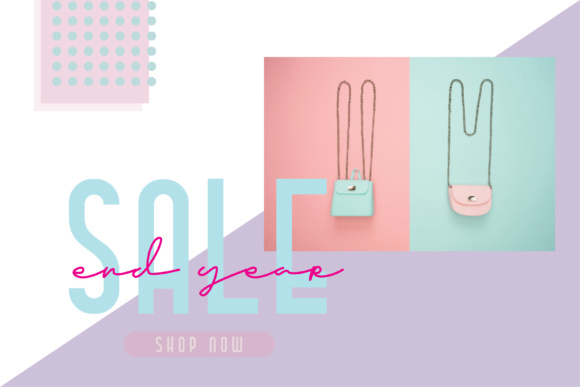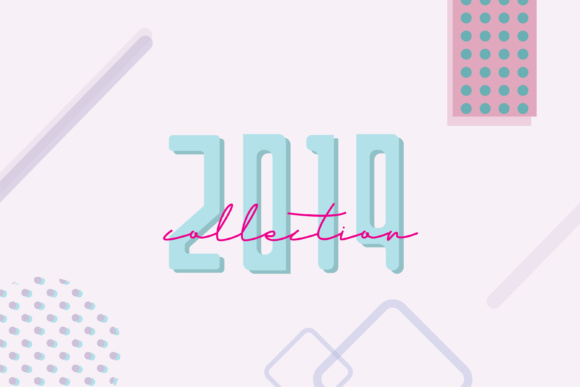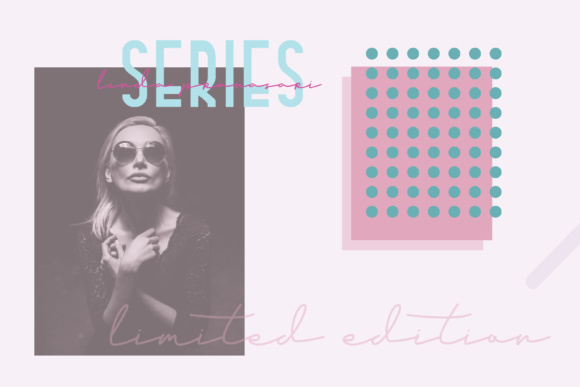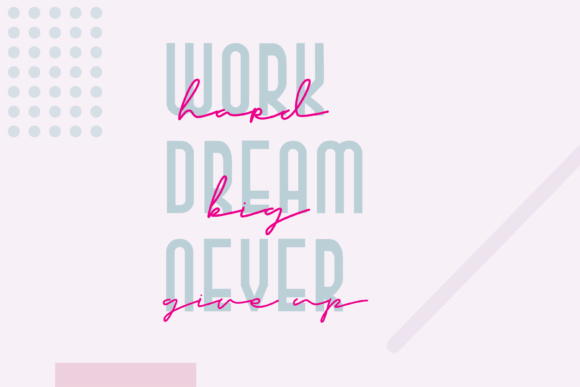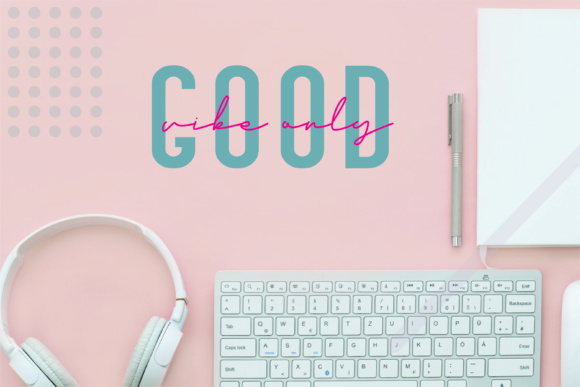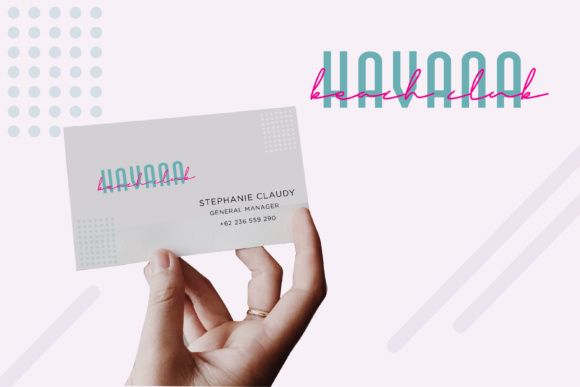
Introducing the Classy Beautiful Duo Font: Elevate Your Designs with Elegance and Modernity
In the world of typography, finding the perfect font duo that combines elegance, modernity, and versatility can be a daunting task. However, look no further than the Classy Beautiful Duo Font, a stunning pair of typefaces designed to transform your designs. This beautiful duo includes two font files – a script and a sans font – crafted to work in harmony as perfect companions or to stand strong as individual typefaces.
The Essence of Classy Beautiful Duo Font
The Classy Beautiful Duo Font is an elegant and modern typeface duo that embodies sophistication and refinement. The script font boasts fluid connections and graceful lines, evoking a sense of luxury and creativity. On the other hand, the sans font presents a clean, crisp, and contemporary look, ideal for designs that require a touch of modernity and simplicity.
Key Features of the Classy Beautiful Duo Font
- Dual Font Files: The package includes two font files – a script font and a sans font – allowing you to choose the perfect style for your project or combine them for a unique look.
- Elegant and Modern: The Classy Beautiful Duo Font seamlessly blends elegance with modernity, making it suitable for a wide range of design applications, from luxury branding to digital media.
- High Versatility: Whether you’re working on a sophisticated business card, an elegant wedding invitation, or a modern website, this font duo adapts effortlessly to various design needs.
- Easy to Read: Both fonts are designed with readability in mind, ensuring that your message is conveyed clearly and effectively, regardless of the medium.
- Designer and Crafters’ Delight: Perfect for designers and crafters looking to add a touch of class and sophistication to their projects, the Classy Beautiful Duo Font offers endless creative possibilities.
Use Cases for the Classy Beautiful Duo Font
The versatility of the Classy Beautiful Duo Font makes it an excellent choice for a variety of design projects. Here are some use cases where this font duo truly shines:
- Branding and Logo Design: Create a lasting impression with elegant and modern logos that reflect your brand’s personality.
- Wedding and Event Stationery: Add a touch of sophistication to wedding invitations, save-the-date cards, and event branding.
- Web Design: Enhance your website’s aesthetic appeal with a clean and elegant typography that engages visitors.
- Packaging Design: Stand out on store shelves with beautifully designed packaging that exudes luxury and quality.
- Social Media Graphics: Elevate your social media presence with stylish and professional graphics.
Why Choose the Classy Beautiful Duo Font?
In a sea of typefaces, the Classy Beautiful Duo Font stands out for its unique blend of elegance and modernity. Here are a few reasons why designers and crafters prefer this font duo:
- Unique Aesthetic: The combination of a script and sans font offers a unique aesthetic that can set your designs apart.
| Font Name | Classy Beautiful Duo Font |
| Author | Sigit Dwipa |
The Classy Beautiful Duo Font is a game-changer for designers and crafters seeking to infuse their projects with elegance, modernity, and sophistication. With its dual font files, high versatility, and aesthetic appeal, this font duo is poised to become a staple in your design toolkit. Whether you’re creating luxury brands, elegant stationery, or modern websites, the Classy Beautiful Duo Font is your key to unlocking a world of creative possibilities.